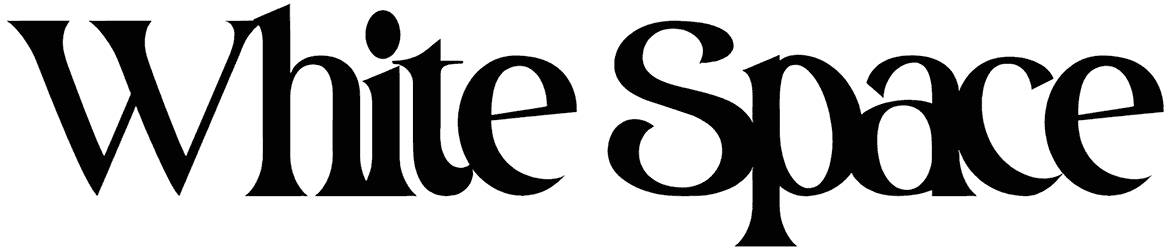
White Space Font
White Space is a timeless font that can make your design last for years. This font is an excellent combination of serif and sans serif fonts, which can simultaneously create a feeling of strength and intimacy in the viewer.
It has a combined look that can create a friendly yet powerful atmosphere in any logo, poster, or advertisement. Of course, if you have chosen White Space, you should also look for a second font to design numbers.
White Space – A Serif Font. This gorgeous, stylish and modern font can be used for a host of different content needs and projects. White Space is ideal for social media banners; posts, ads, printed quotes, t-shirt designs, packaging, and even a modern text overlaying any background images.
• Alternates
• Ligatures
• Stylistic Sets
• Swashes
• Multilingual Supports
• Numerals and Punctuations